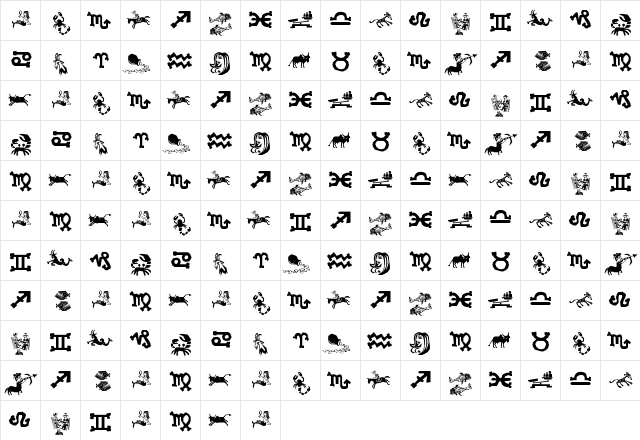
Xilo in Zodiac Regular
| Designer | Galdino Otten |
Design Context for Xilo in Zodiac Typeface
Xilo in Zodiac is a composed and adaptable typeface that performs quietly and consistently across a wide range of design contexts.